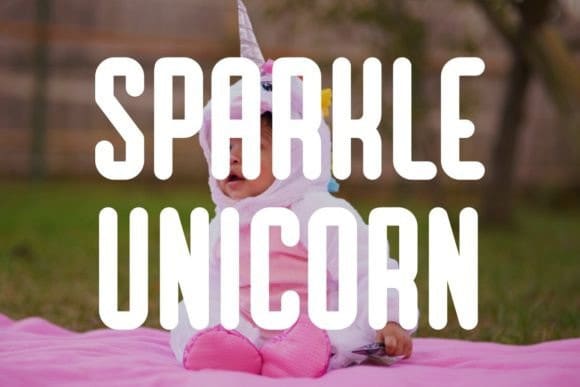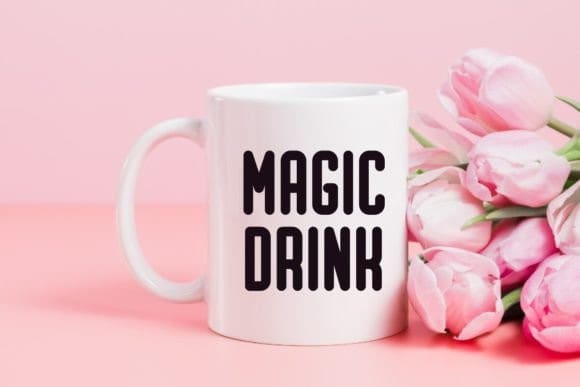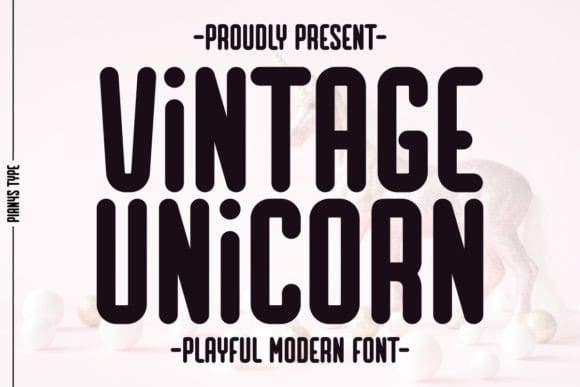
Vintage Unicorn Font
Vintage Unicorn Font is a playful modern and cute sans serif font with a feminine touch and delightful pink hues. This font adds a fun and magical flair to any project. Perfect for creating charming posters, inspiring quotes, engaging backgrounds, birthday invitations, trendy t-shirts, stylish mugs, tote bags, tumblers, cozy pillows, and greeting cards.